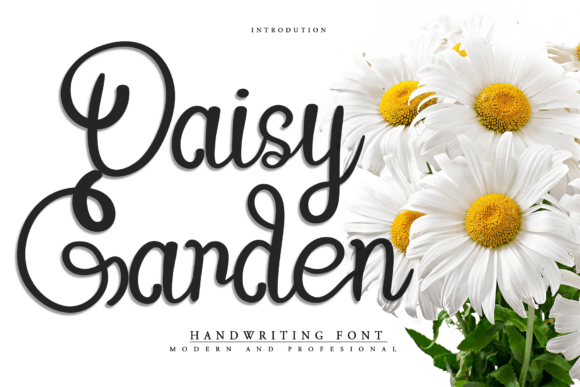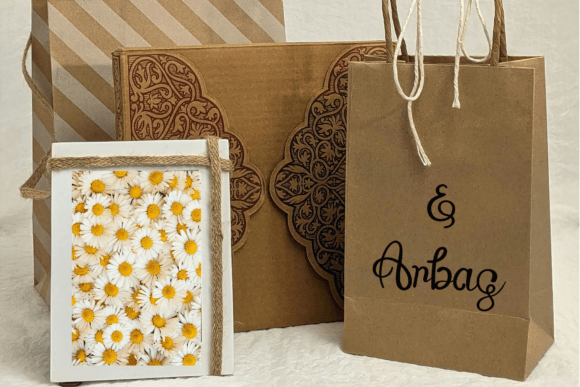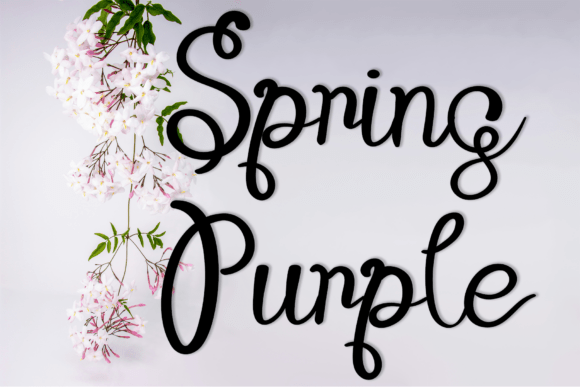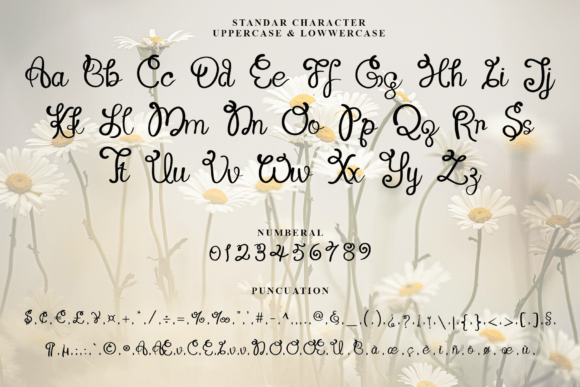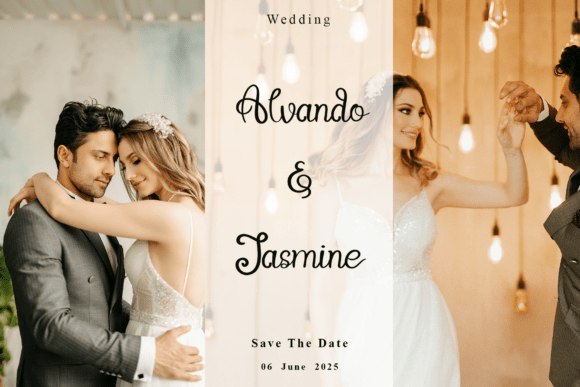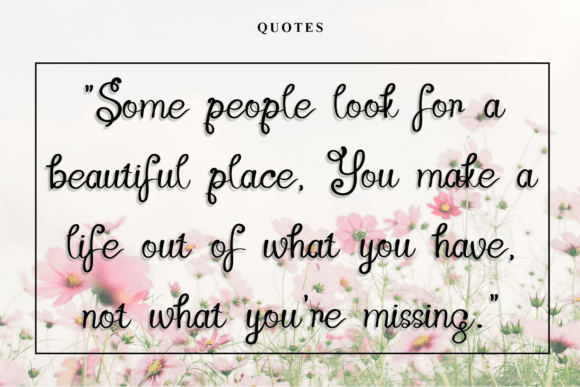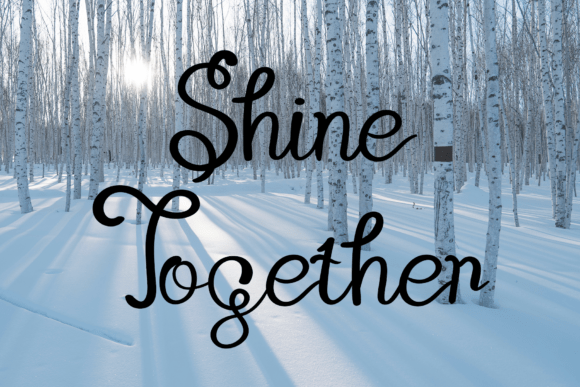
Discover the Charm of Daisy Garden Font
Remember the moment you stumbled upon the perfect font for your latest design project? The one that made everything click into place, and you knew you’d found something special? For many designers, this moment is a recurring one, and it’s what drives us to keep pushing the boundaries of creativity. For me, that moment came when I discovered the Daisy Garden Font.
This charming handwritten font is more than just a pretty face – it’s a versatile tool that can be used in a wide range of applications, from greeting cards to headlines. Whether you’re looking to add a touch of whimsy to your next project or create a more natural, effortless feel, the Daisy Garden Font is guaranteed to deliver. Its simplicity and elegance make it a valuable asset for designers, and its potential applications are endless.
Daisy Garden Font Key Features
- Unique Characteristics: Daisy Garden Font features a unique, hand-drawn design with a whimsical and romantic feel, making it perfect for floral-themed projects and designs.
Daisy Garden Font Review
I recently had the chance to work with the “Daisy Garden Font” and I must say, it’s a lovely addition to any design project. Here’s what I liked about it:
- ✨ The font is incredibly feminine and perfect for designs targeting a female audience. It’s great for wedding invitations, baby shower decorations, or any other project that requires a touch of elegance.
- ✨ The font is highly customizable, making it easy to adjust the size, color, and style to fit your design needs.
- ✨ The font is also available in a range of weights, from light to bold, giving you plenty of options to create contrast and visual interest in your design.
However, I did encounter a few limitations:
- ⚠️ The font may not be suitable for designs that require a more modern or edgy feel. It’s a bit too whimsical and floral for that.
- ⚠️ Some of the letters may be a bit difficult to read at smaller font sizes, so be sure to test it out before using it in a final design.
Overall, I was impressed with the “Daisy Garden Font” and would definitely recommend it for designs that require a touch of elegance and femininity. While it may have some limitations, it’s a great addition to any designer’s toolkit.
The Daisy Garden Font is perfect for:
Floral-themed designs and graphics
Home decor and furniture designs
Botanical illustrations and art
Any design project that requires a whimsical and feminine touch.